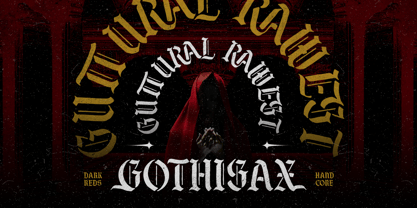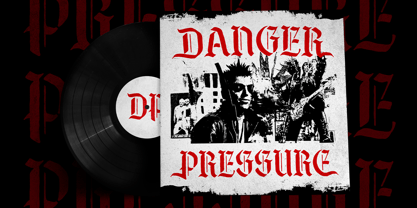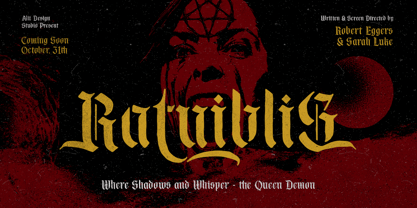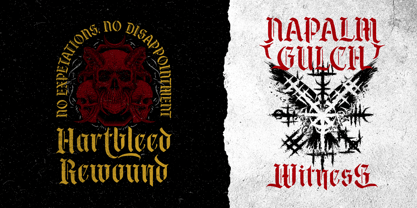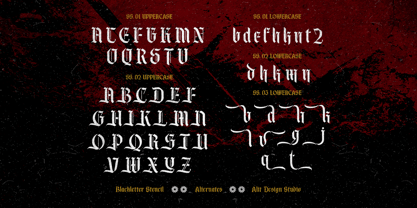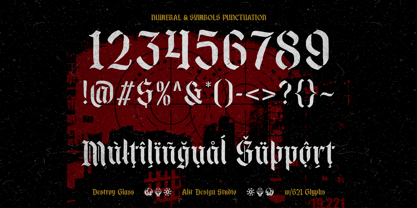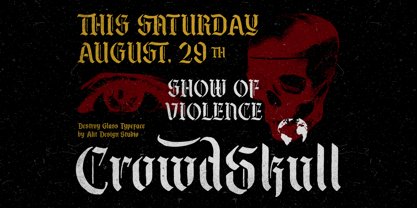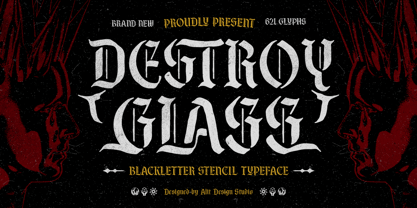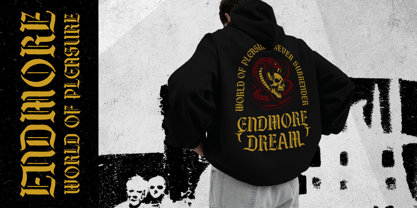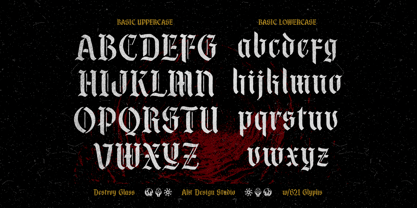
Destroy Glass
by Alit Design
The Destroy Glass Font Family was designed by Alit Suarnegara and published by Alit Design. Destroy Glass contains 1 styles.
Destroy Glass Blackletter Font
Unleash boldness and elegance with Destroy Glass Blackletter Font, a meticulously crafted blackletter stencil typeface designed to make a powerful statement. Whether you're aiming for a vintage gothic aesthetic or an edgy modern look, this font delivers the perfect balance of tradition and rebellion.
Key Features:
• 621 Unique Characters: Offering a vast array of letters, numbers, and symbols to fit all your design needs.
• Swash Variations: Add flair and personality with beautifully designed swash elements.
• Alternate Characters: Provides versatility with multiple character options for a personalized touch.
• Ligatures: Enhance typography with seamless letter combinations that improve readability and aesthetics.
• Multilingual Support: Supports a wide range of languages, ensuring your message is clear no matter where it’s seen.
Why Choose Destroy Glass?
Perfect for logos, posters, album covers, apparel design, and other creative projects, Destroy Glass Blackletter Fontcombines the historic essence of blackletter typography with a modern stencil twist. Whether you're looking to evoke strength, elegance, or a rebellious vibe, this font is your go-to choice.
Make your designs unforgettable with the raw power and refined details of Destroy Glass Blackletter Font.